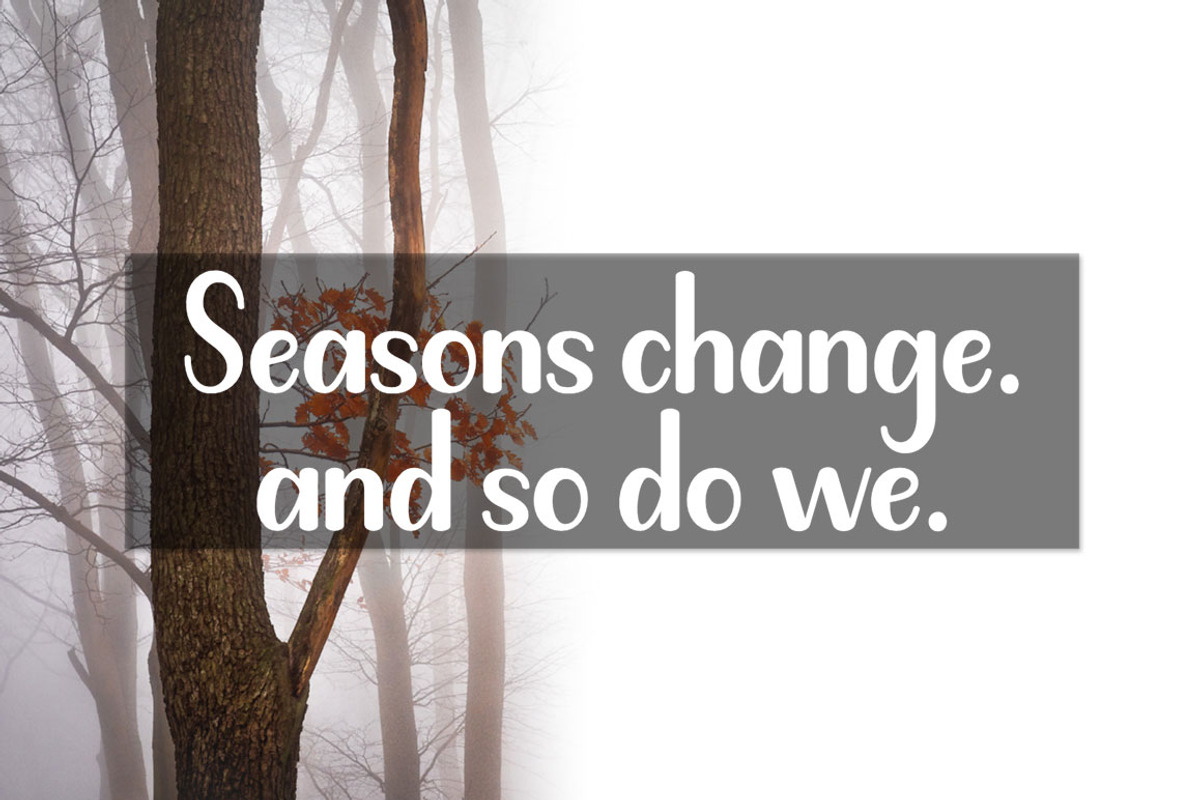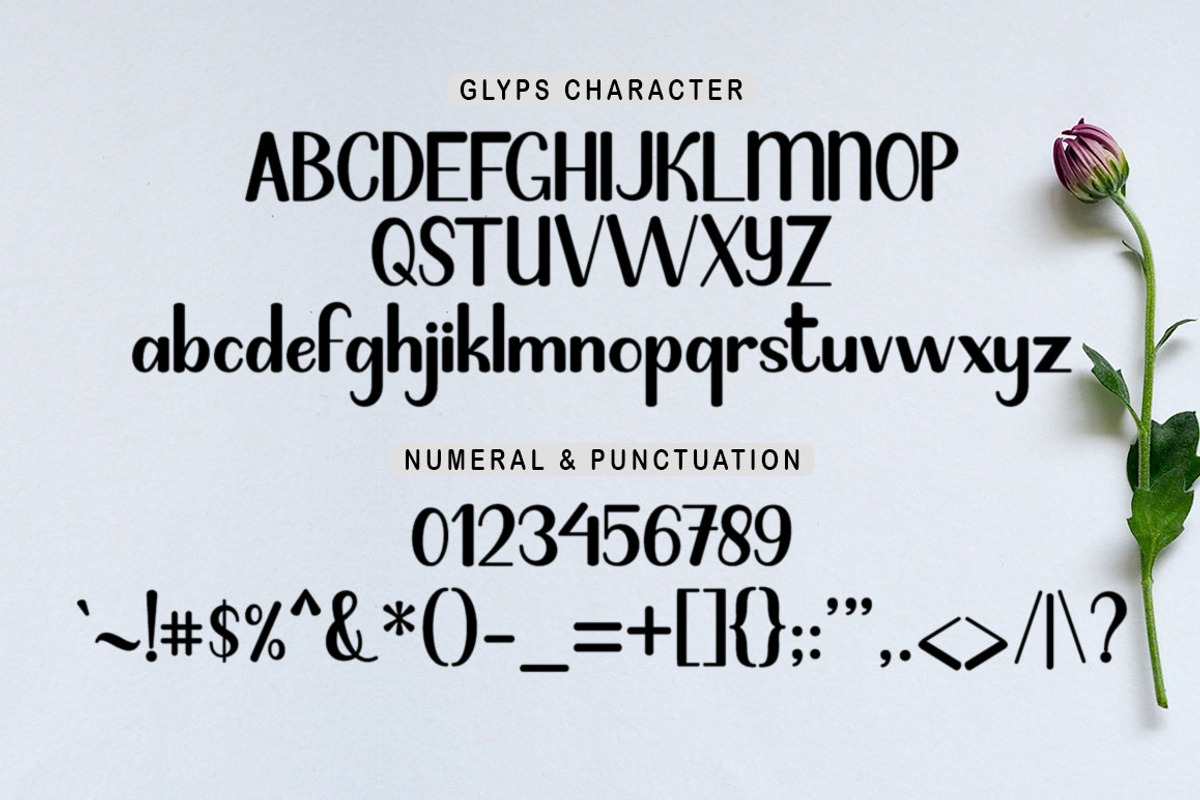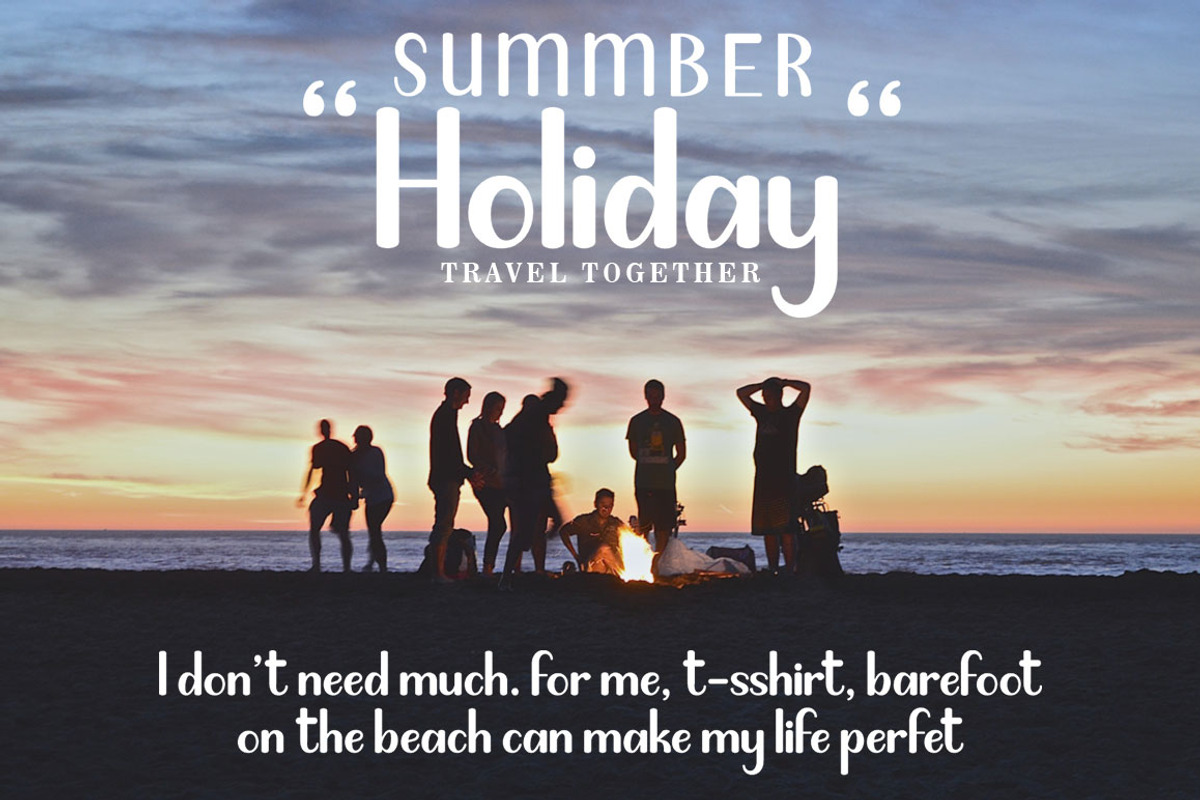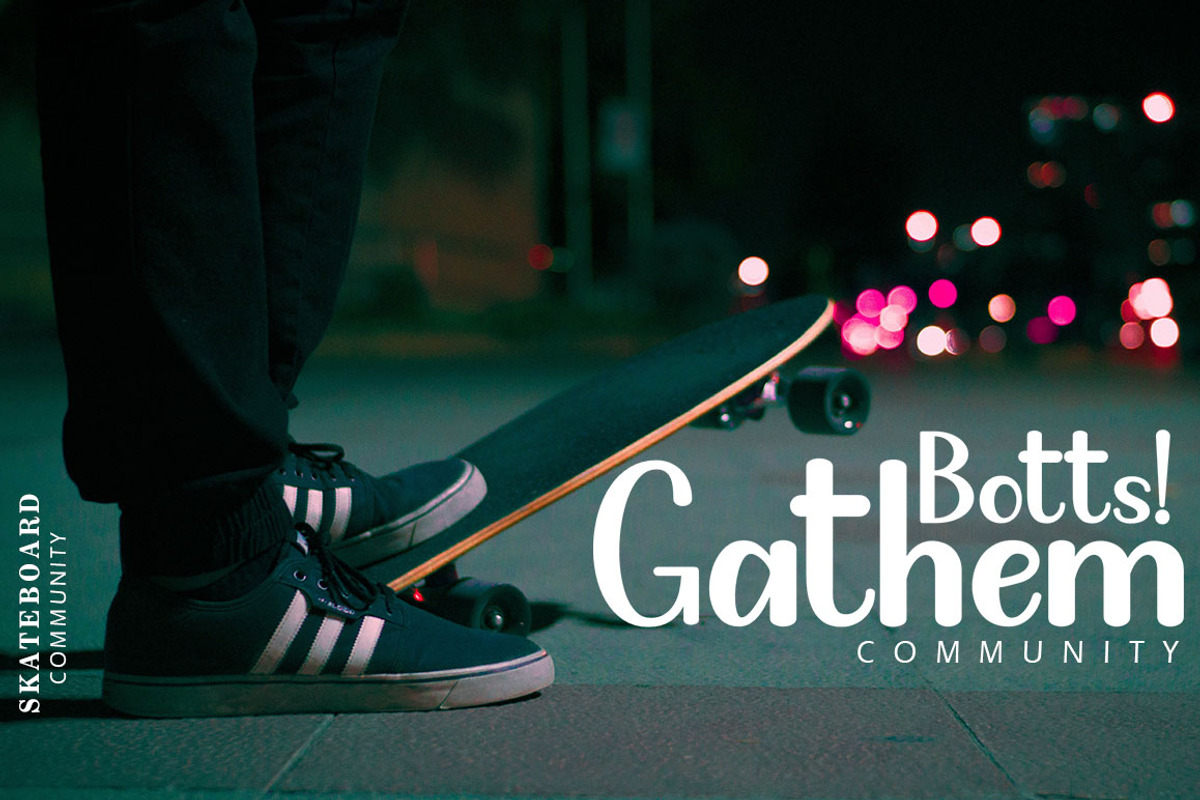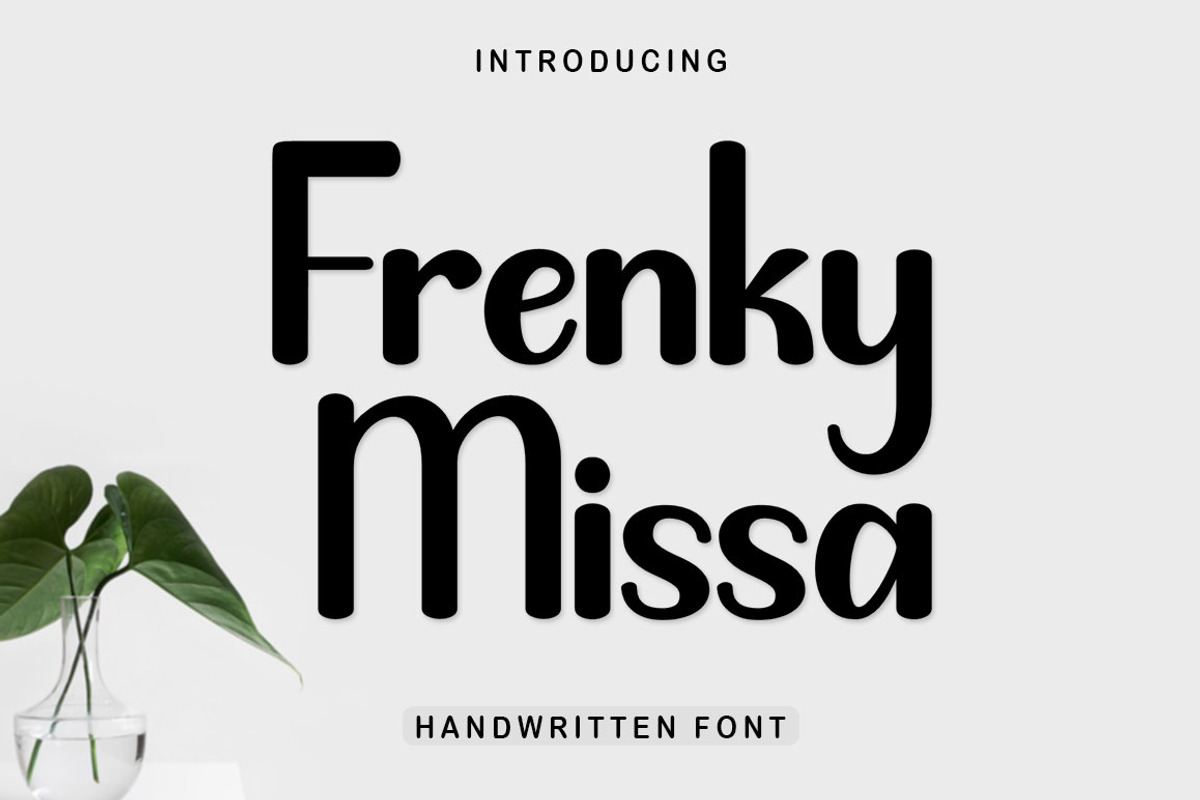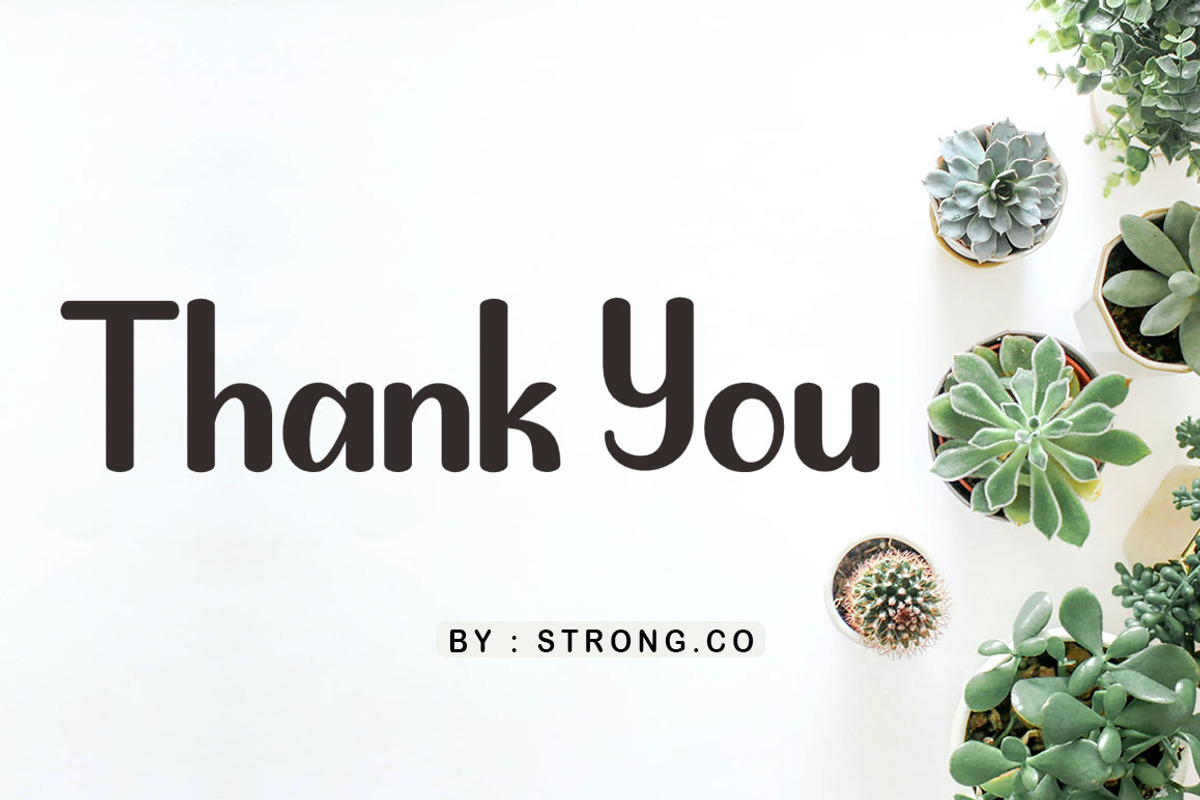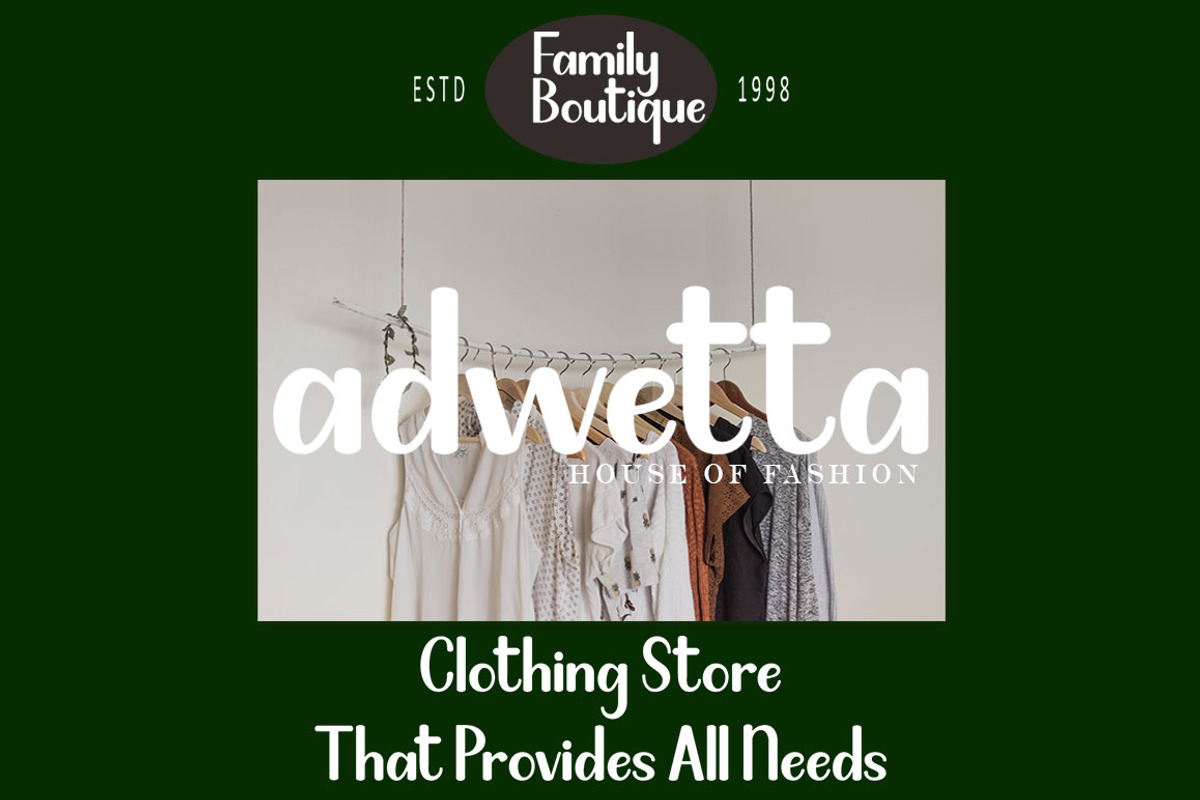
Frenky Missa
DESCRIPTION Special creative product for you, our product will give you an unforgettable extraordinary experience.
Popular and professional script font. Modern and elegant, this typeface is made of beautiful creative strokes.
This font is perfect for your creative ideas, both formal and informal. It has a modern style with a touch of creative ideas that are very suitable for application anywhere that needs creative ideas such as invitation cards,
letterheads, website logos, social media, banners, advertisements, brochures, packaging products, leather products, and any products that need writing.
By using this font, all your products will look luxurious, elegant, and attractive, please try it and see the results.
This font includes a complete set of beautiful uppercase and lowercase letters, numbers, various punctuation marks, and ligatures. All lowercase letters include the beginning and end, giving a realistic style. All you get.